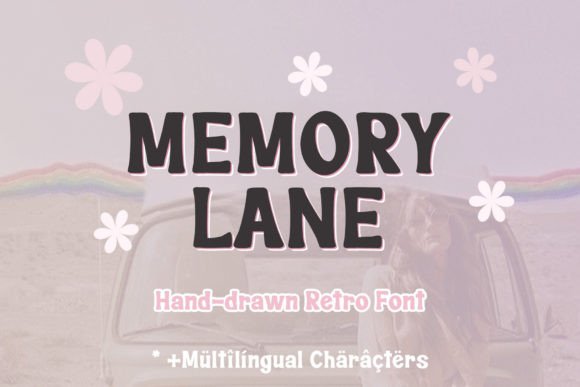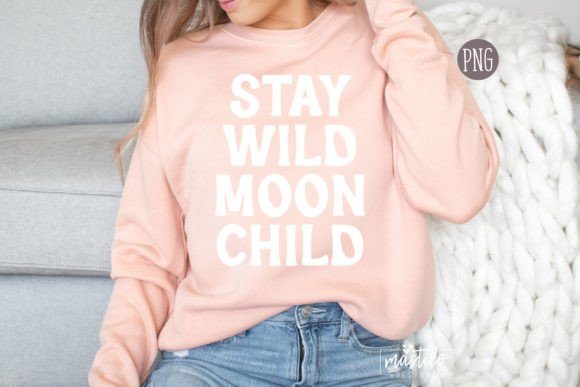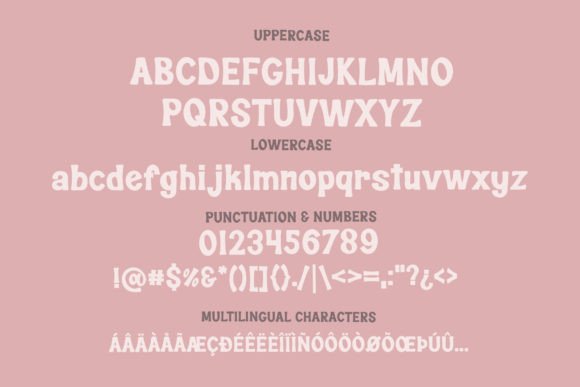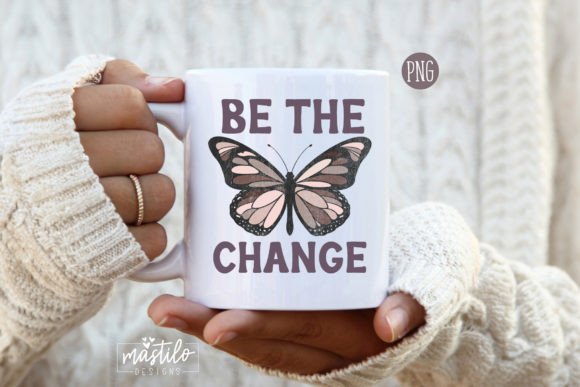
Memory Lane Font: Groovy Retro Display Font for Cricut Projects!
About the Memory Lane Font
We are excited to introduce Memory Lane Font, a must-have typeface for any serious designer. Introducing Memory lane, a hand-drawn retro display font. A versatile font, with possibilities for use for all your projects. With the possibility to change the Uppercase strokes to different colors, it makes a great craft font for all your projects. Use it to design logos + branding, create retro shirt designs and other apparel, stickers, phone cases, home decor, social media templates and Instagram quotes, Cricut and silhouette projects, procreate and so much more.
Memory Lane’s playful, hand-drawn quality makes it ideal for headlines, logos, short text blocks on posters or packaging, and social media graphics. Its retro style is perfect for projects evoking nostalgia or a vintage aesthetic. However, its low x-height and inconsistent stroke weights make it unsuitable for body text or UI elements requiring high readability.
Pairing Memory Lane with a clean sans-serif like Open Sans for body copy provides a strong contrast and enhances legibility. For a more vintage feel, a serif like Playfair Display offers a sophisticated counterpoint. Alternatively, a geometric sans-serif like Futura could create a modern, yet balanced feel.
The font exudes a charming, slightly quirky personality, best suited for brands targeting a younger demographic or those wishing to project a fun, approachable image. Avoid using it where a serious or sophisticated tone is required.
Memory Lane Font Usage Examples
Memory Lane Font Example